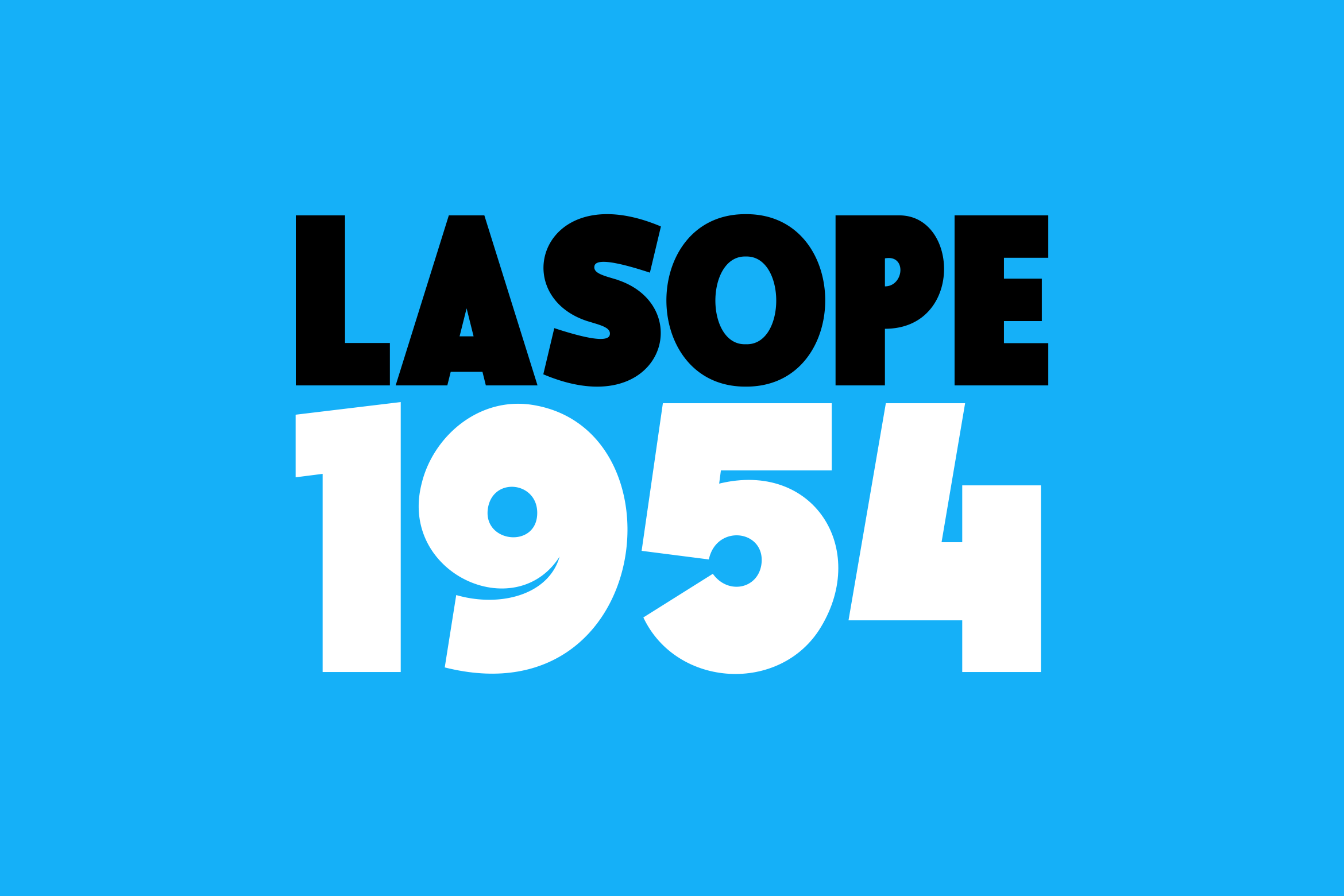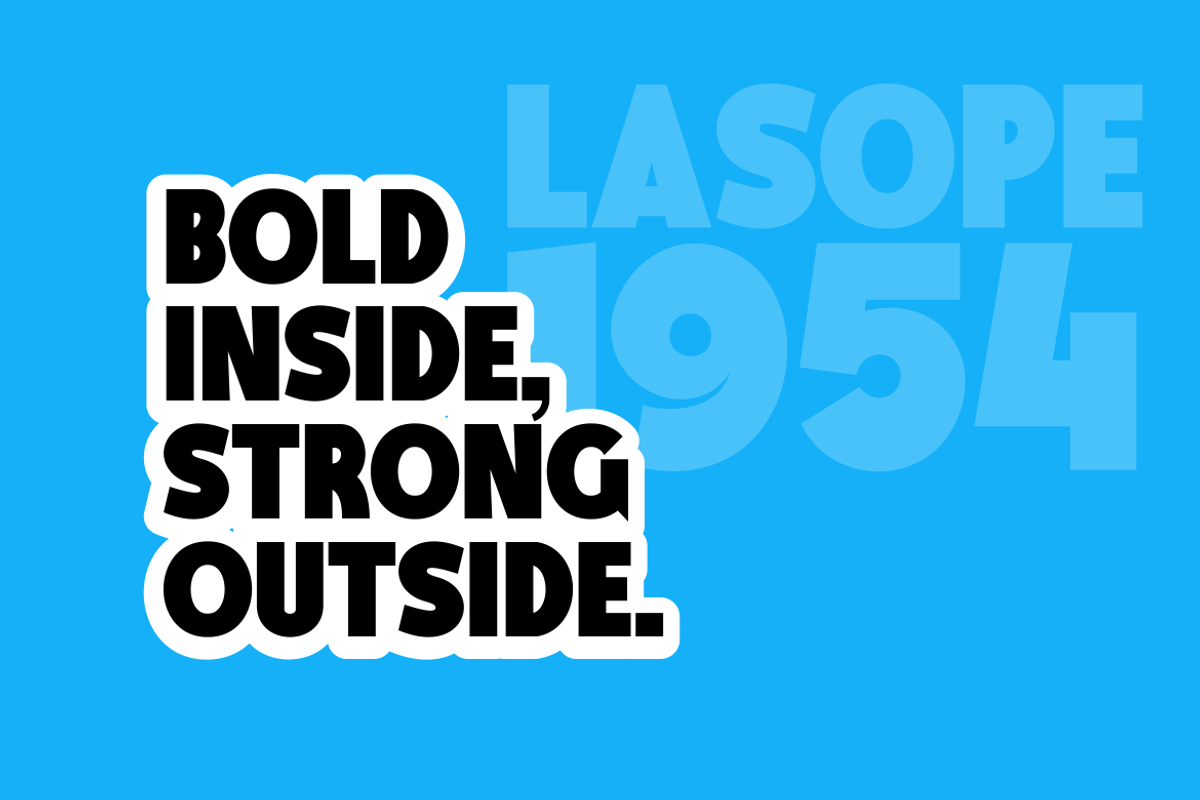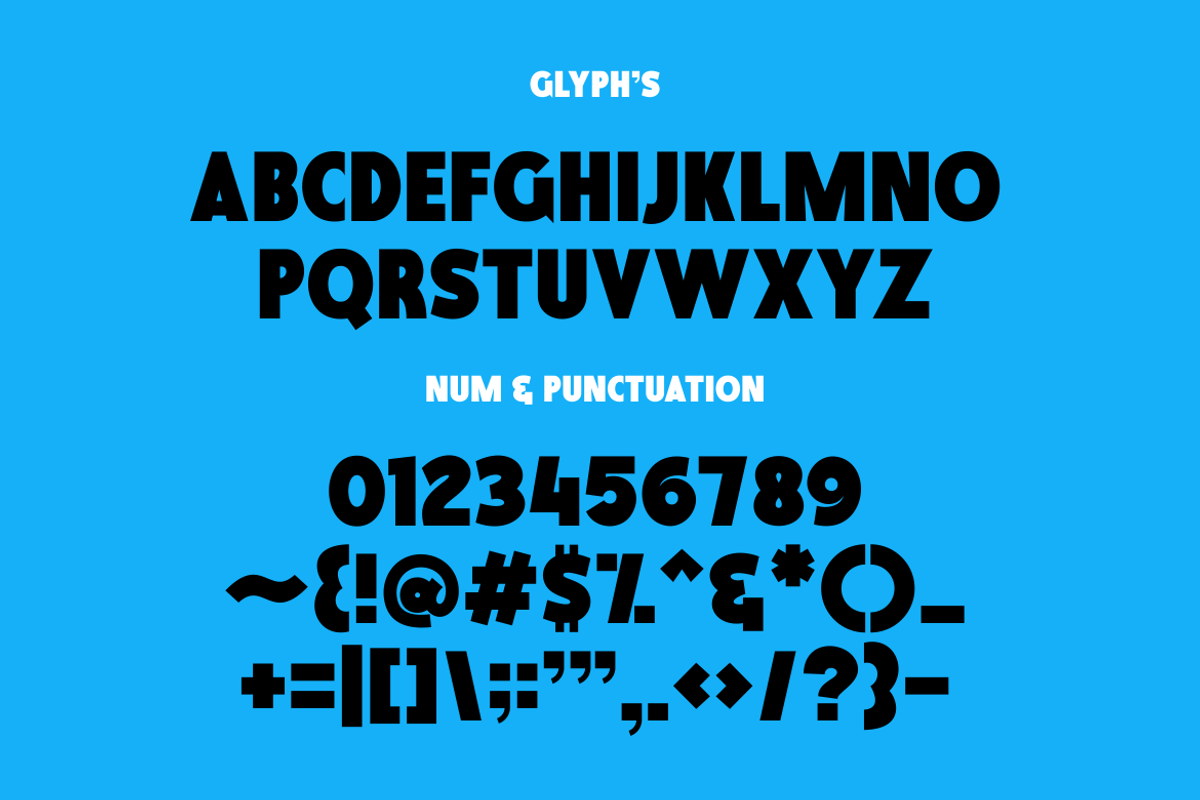
Lasope 1954 - Bold Font
Experience the timeless elegance of Lasope 1954 – A Bold Sans Serif font that embodies strength and sophistication. With its powerful uppercase-only style, it’s an unbeatable choice for those daring posters, divine holy book covers, and striking shop names that demand attention. Its clean, sturdy typography promises to uplift your designs, effortlessly incorporating a touch of bold yet refined branding into any project. Immerse your designs in the classic charm of Lasope 1954, and let its enduring versatility do the talking.